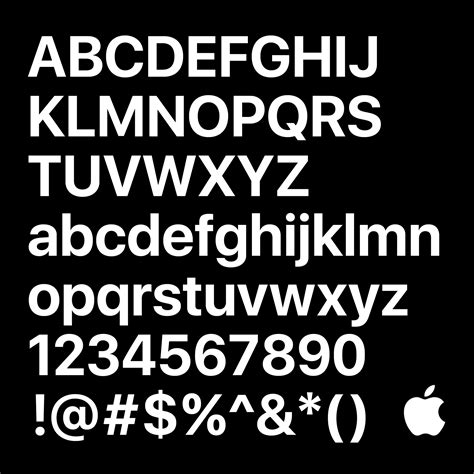
Apple Sf Font. Web learn about the san francisco and sf pro fonts, designed by apple, that provide optimal legibility and typographic voice for.
Web learn about the san francisco and sf pro fonts, designed by apple, that provide optimal legibility and typographic voice for.
Web learn about the san francisco and sf pro fonts, designed by apple, that provide optimal legibility and typographic voice for. Web learn about the san francisco and sf pro fonts, designed by apple, that provide optimal legibility and typographic voice for.